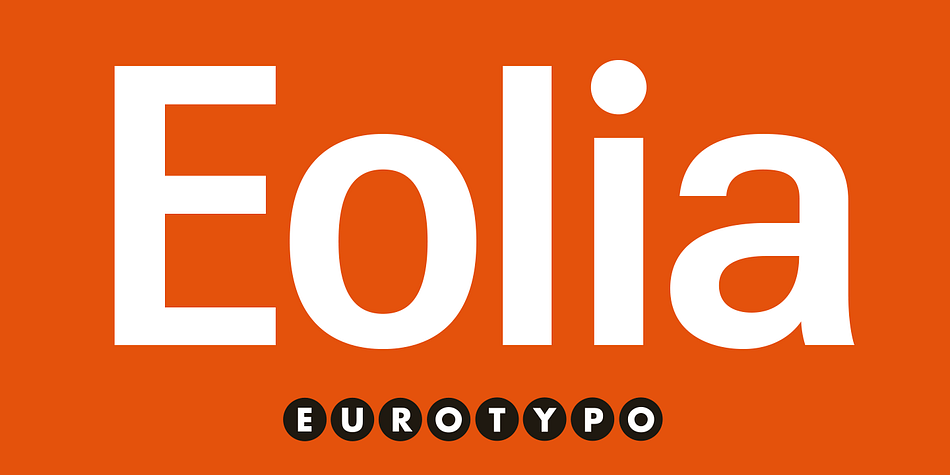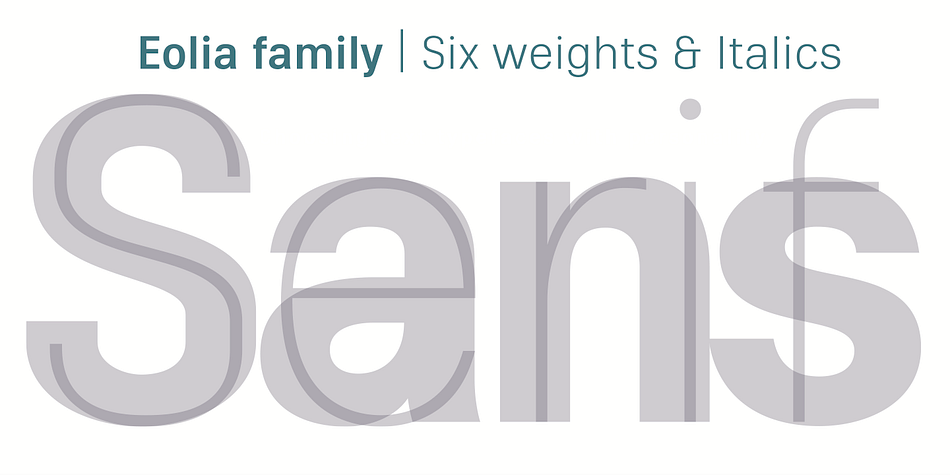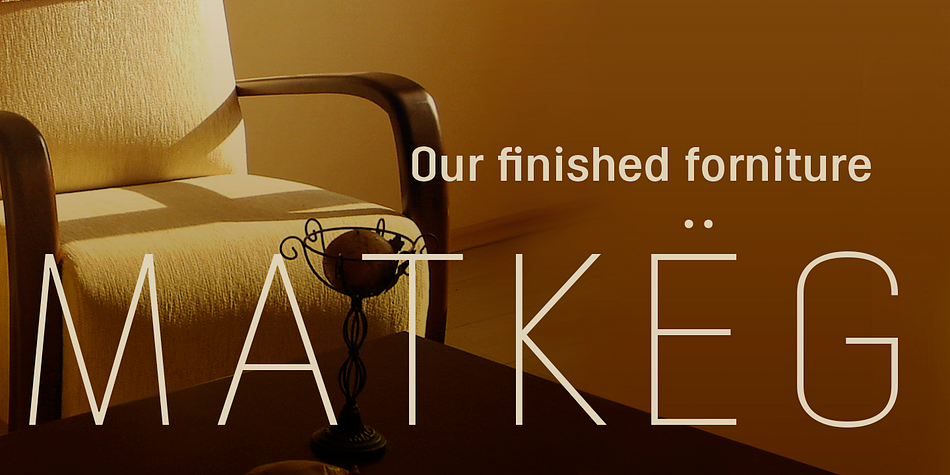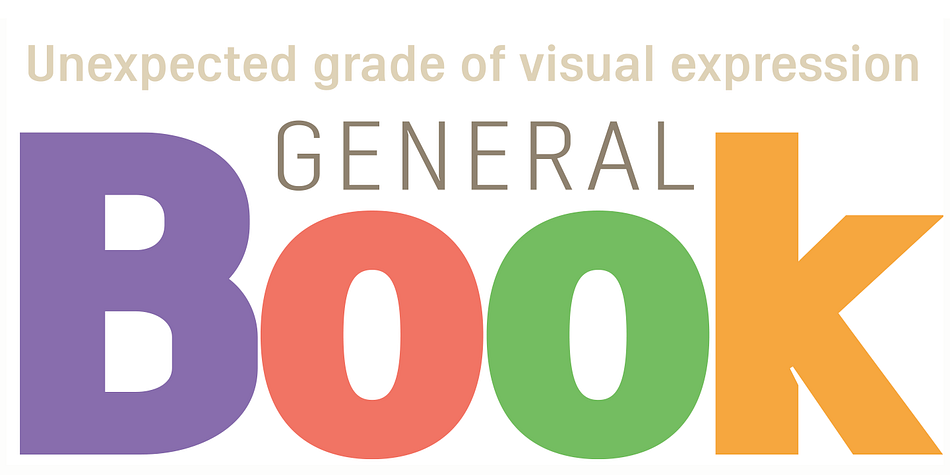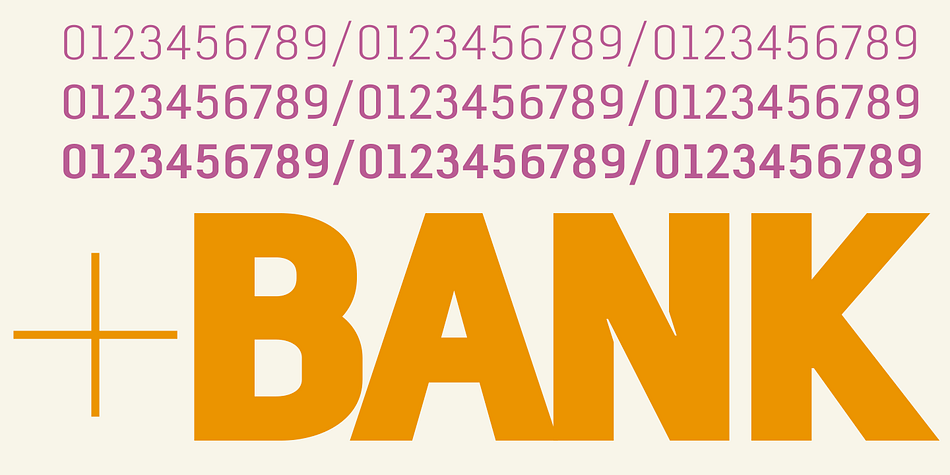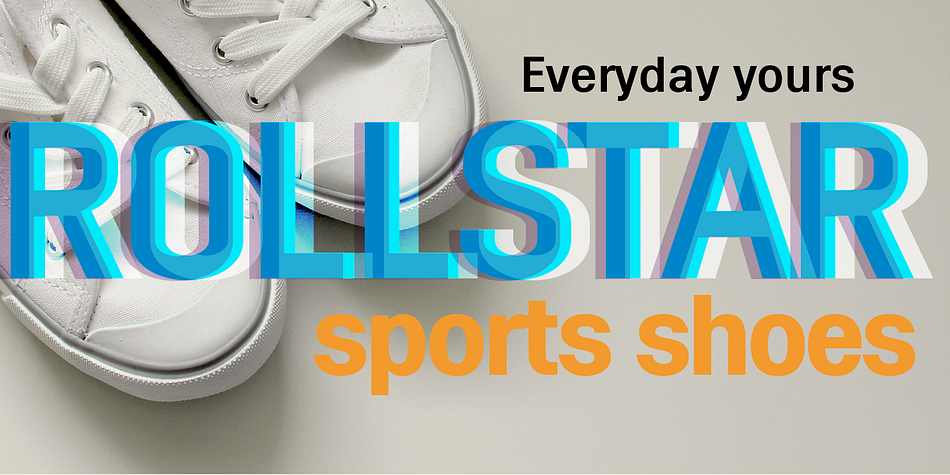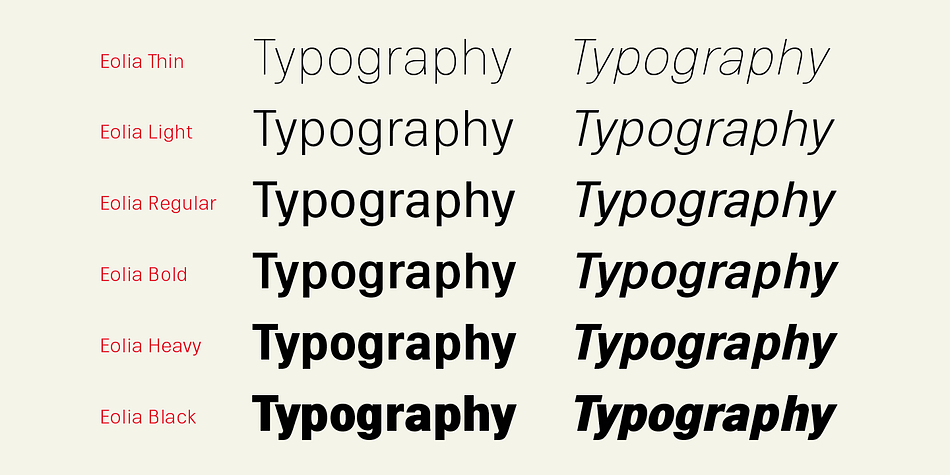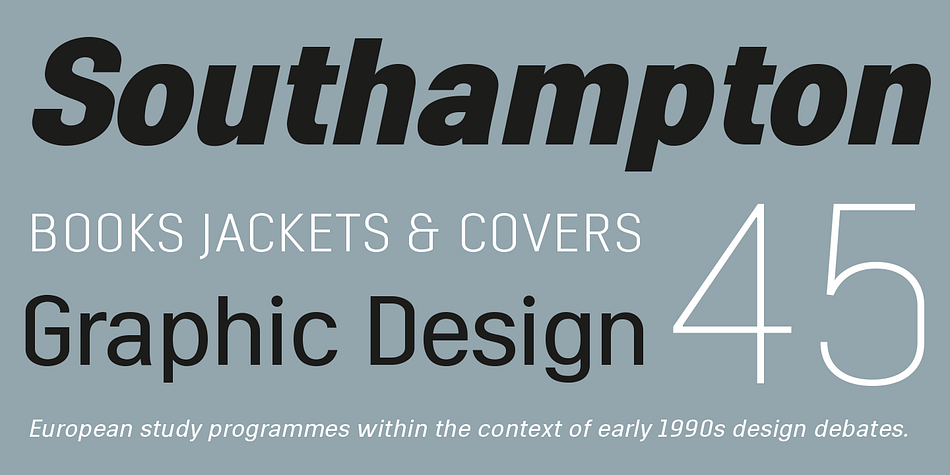
Designed by Olcar Alcaide, Eolia is a sans serif font family. This typeface has twelve styles and was published by Eurotypo.
In ancient Greece, the inhabitants of the Aegean islands and the northwest coast of Asia Minor were called “Eolia”.
Eolia is a family of sans serif fonts that combine grotesque style with certain geometric characteristics. This family composed of six weights harmonically controlled, has blunt strokes, perfectly defined with subtle modulations as a result of careful optical corrections. The control of the counterforms and accurate kerning gives it great readability, personality, aesthetic value and visual impact.